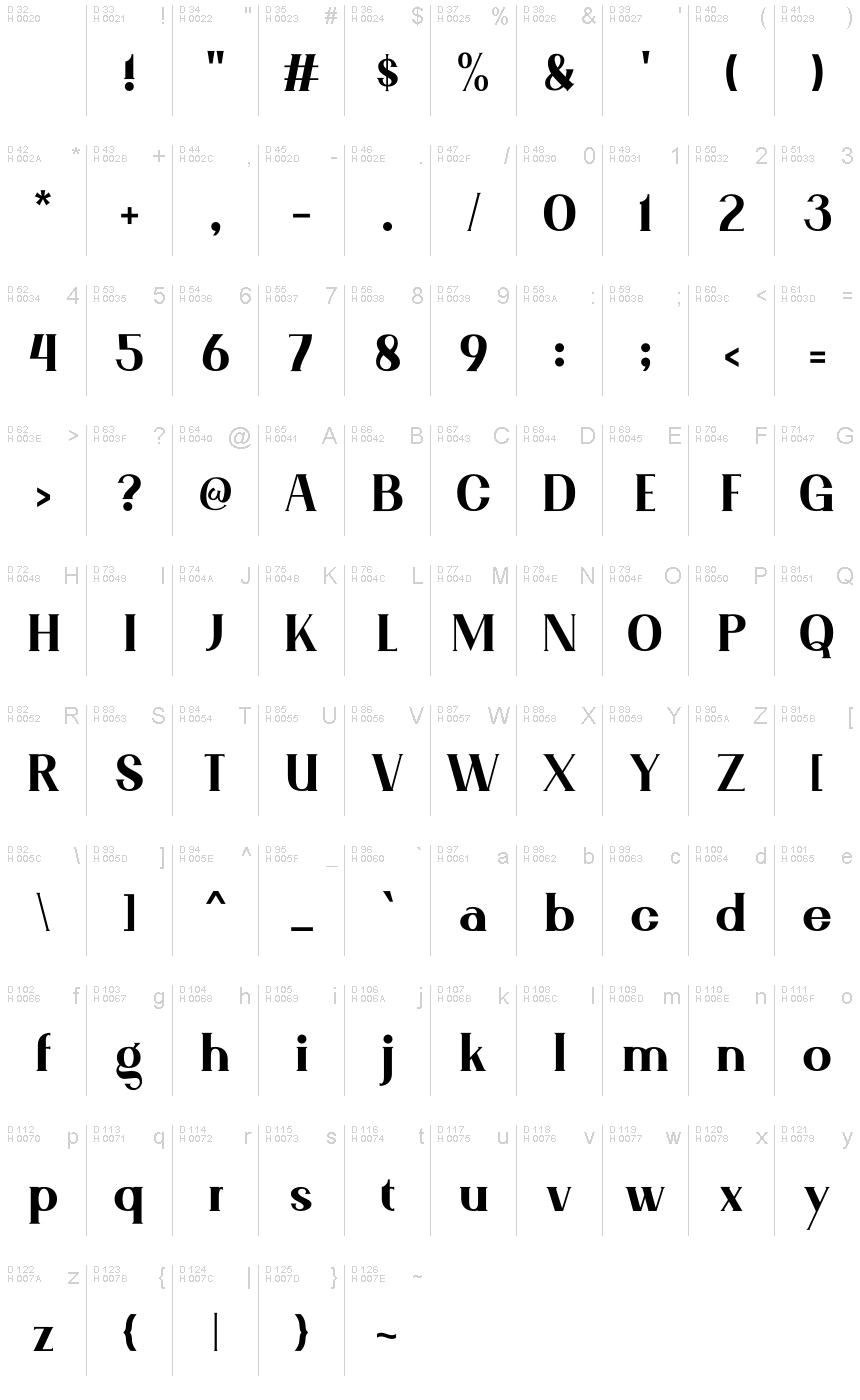
MARLONG
Marlong is a striking serif typeface crafted by Typeline Studio, characterized by its bold presence and elegant curves. This font exudes sophistication, combining a refined aesthetic with playful charm. Its captivating design features an expanded structure that elevates readability while maintaining artistic flair, making it perfect for both modern and classic contexts.
The graceful serifs lend an air of authority, while the robust yet delicate strokes provide visual contrast that draws the eye. Marlong shines in editorial layouts, branding projects, and high-end invitations, where its unique personality can take center stage. Whether used for headlines or body text, this font brings a sense of luxury and professionalism to any design endeavor.